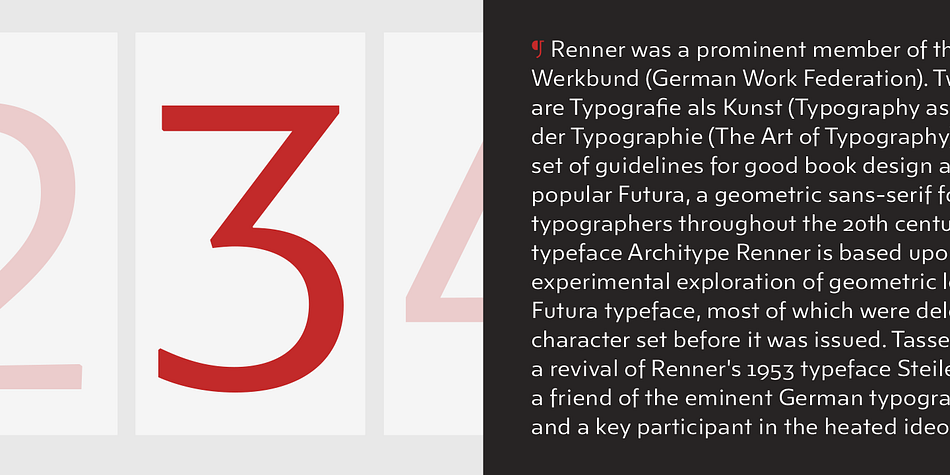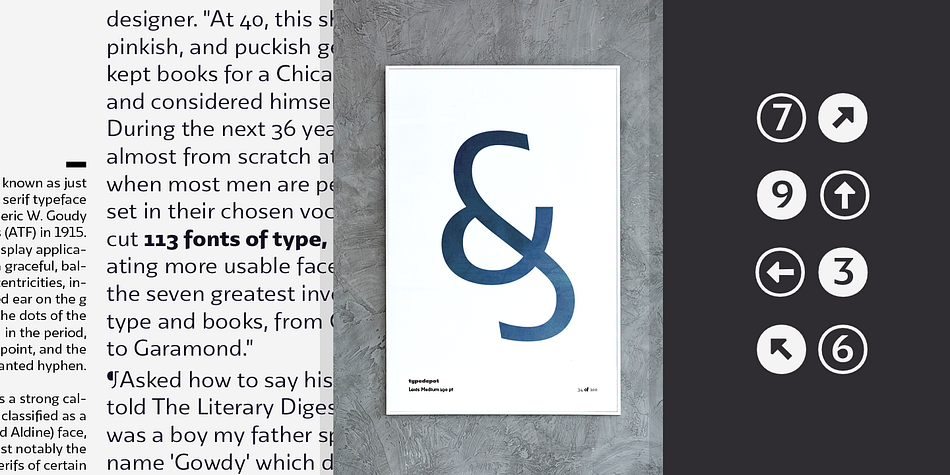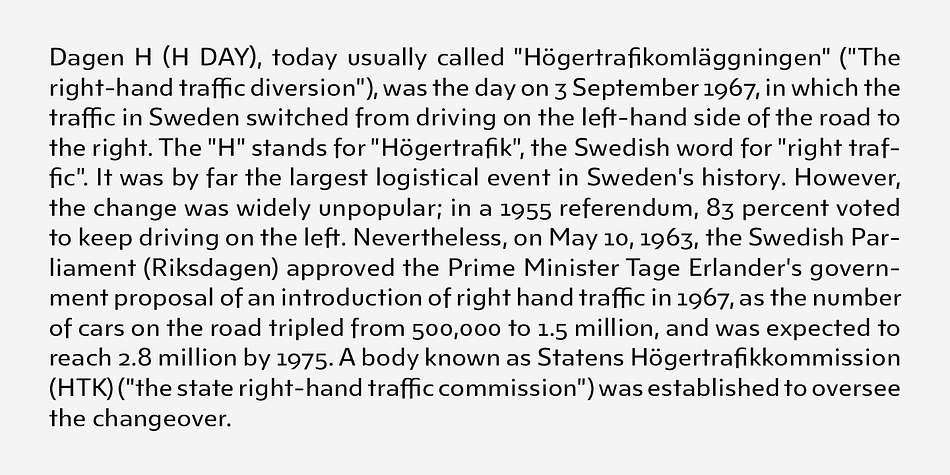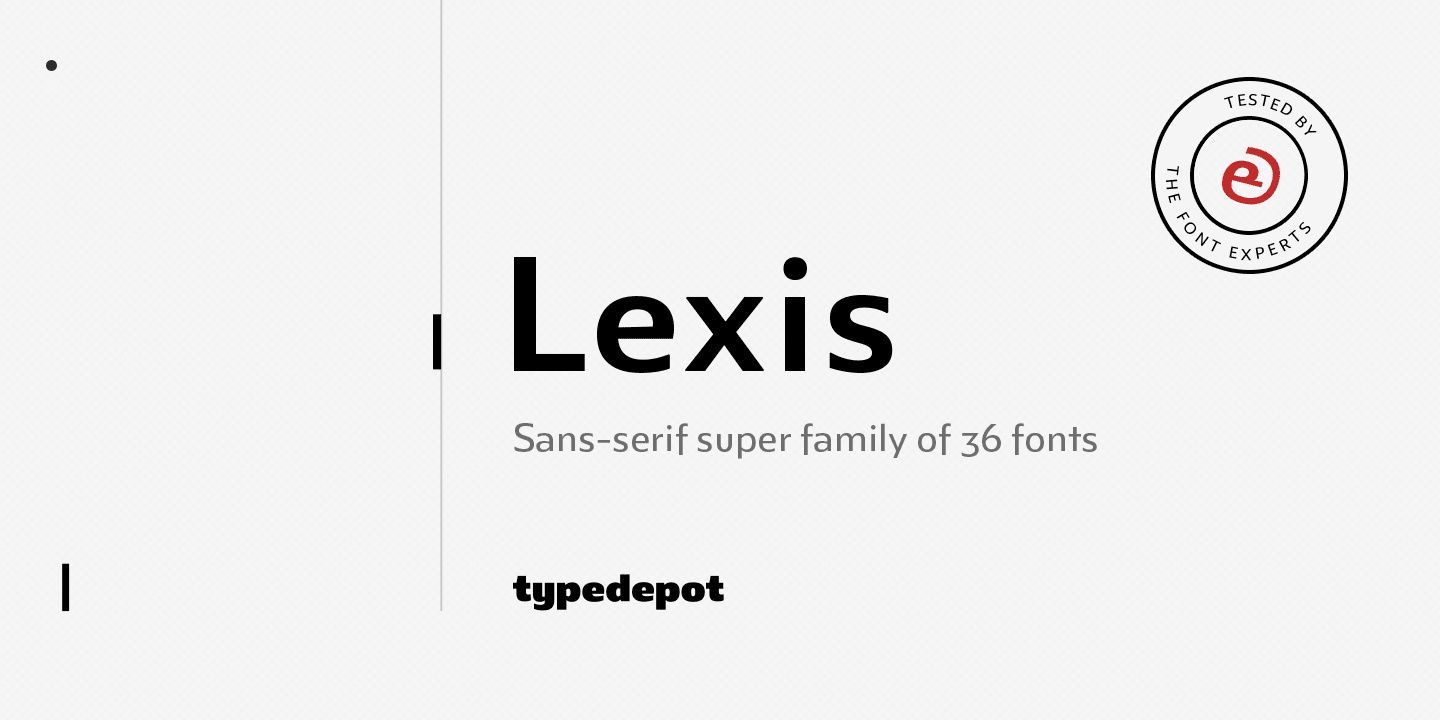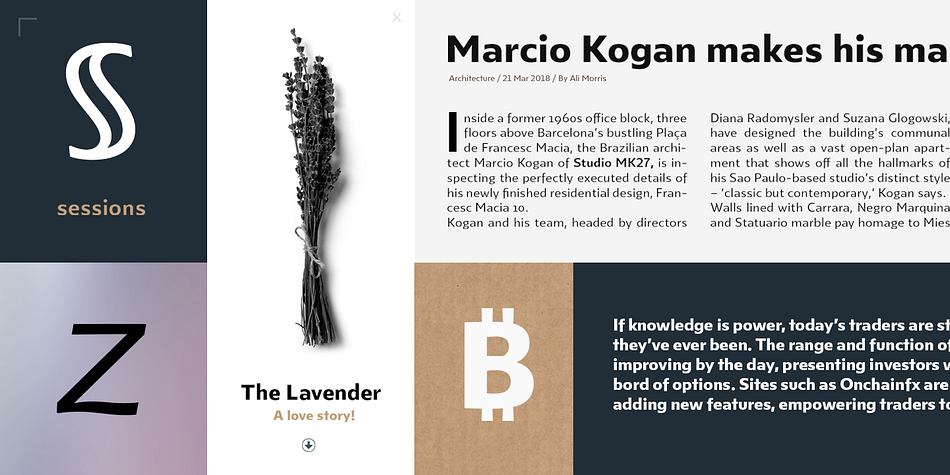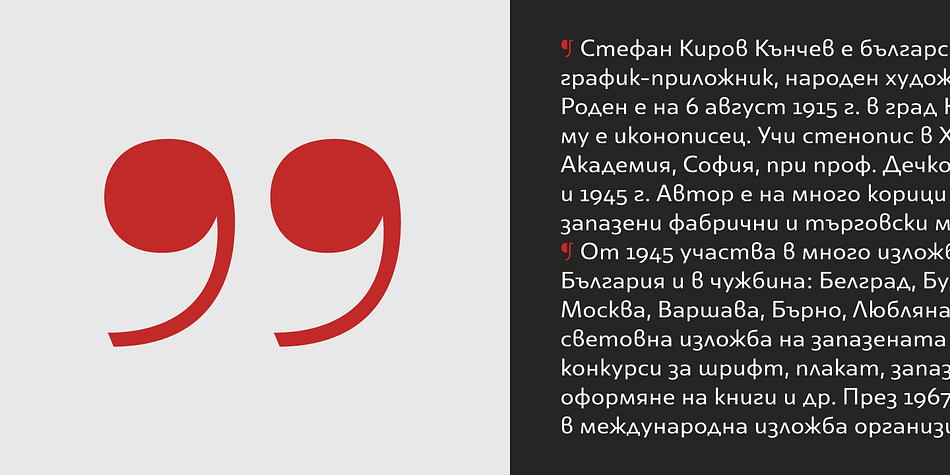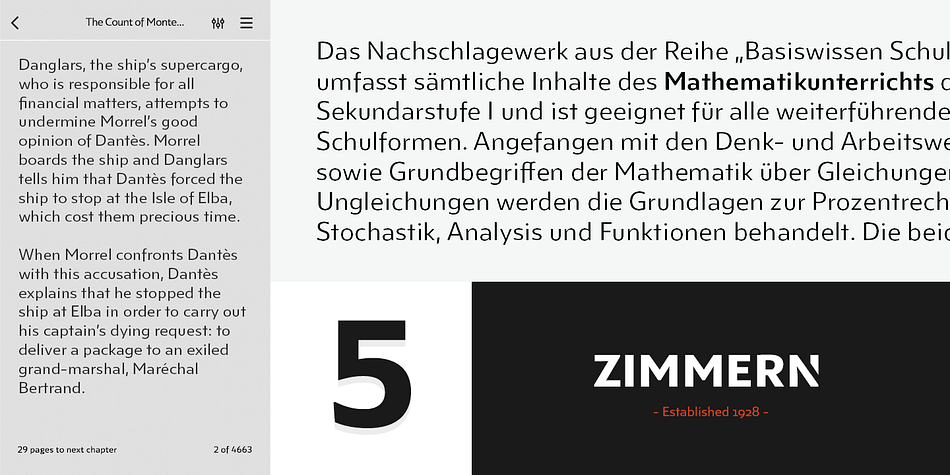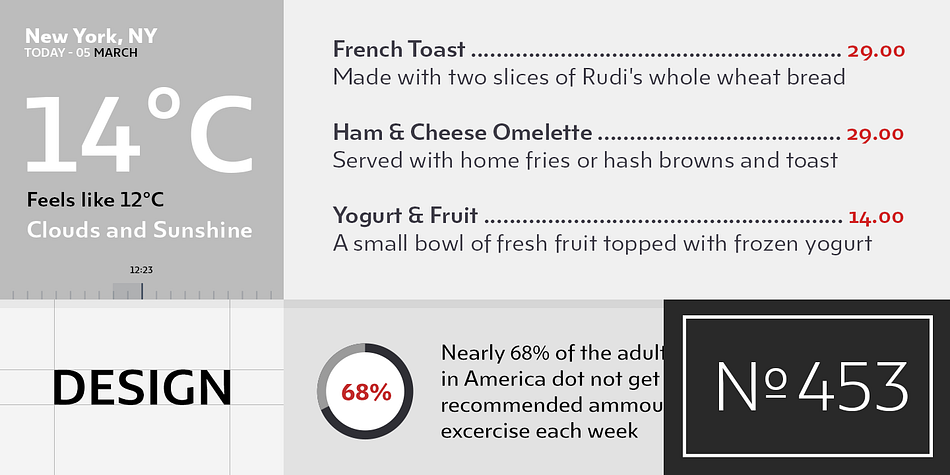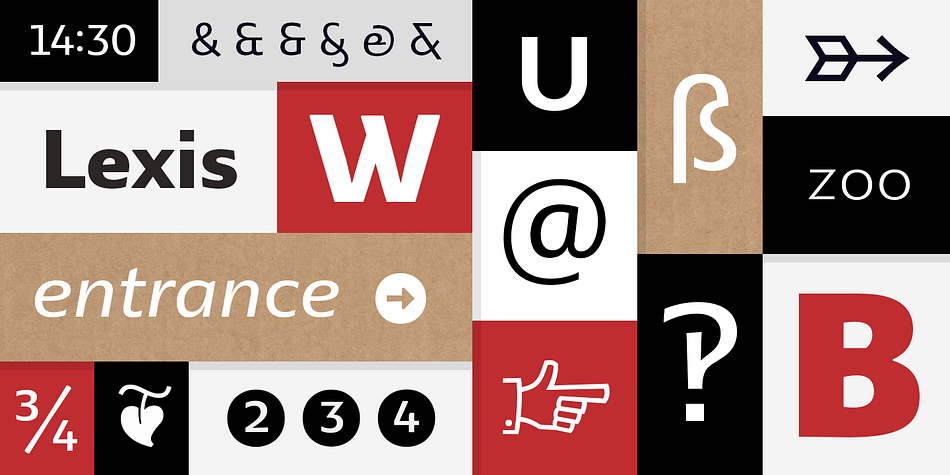
Lexis is a sans serif font family. This typeface has thirty-six styles and was published by Typedepot.
The Lexis font family is a sans serif “super” family consisting of two sub-families - Lextis & Lexis Alt. While the first one follows the humanist model, its alternative version Lexis Alt dives way deeper into the geometric aesthetic.
It’s simple yet versatile, packing great amount of well balanced weights, extensive character set and numerous Opentype features.
The Lexis typefamily comes in 9 weights plus their italics, two distinctive styles and support for over 200 languages.